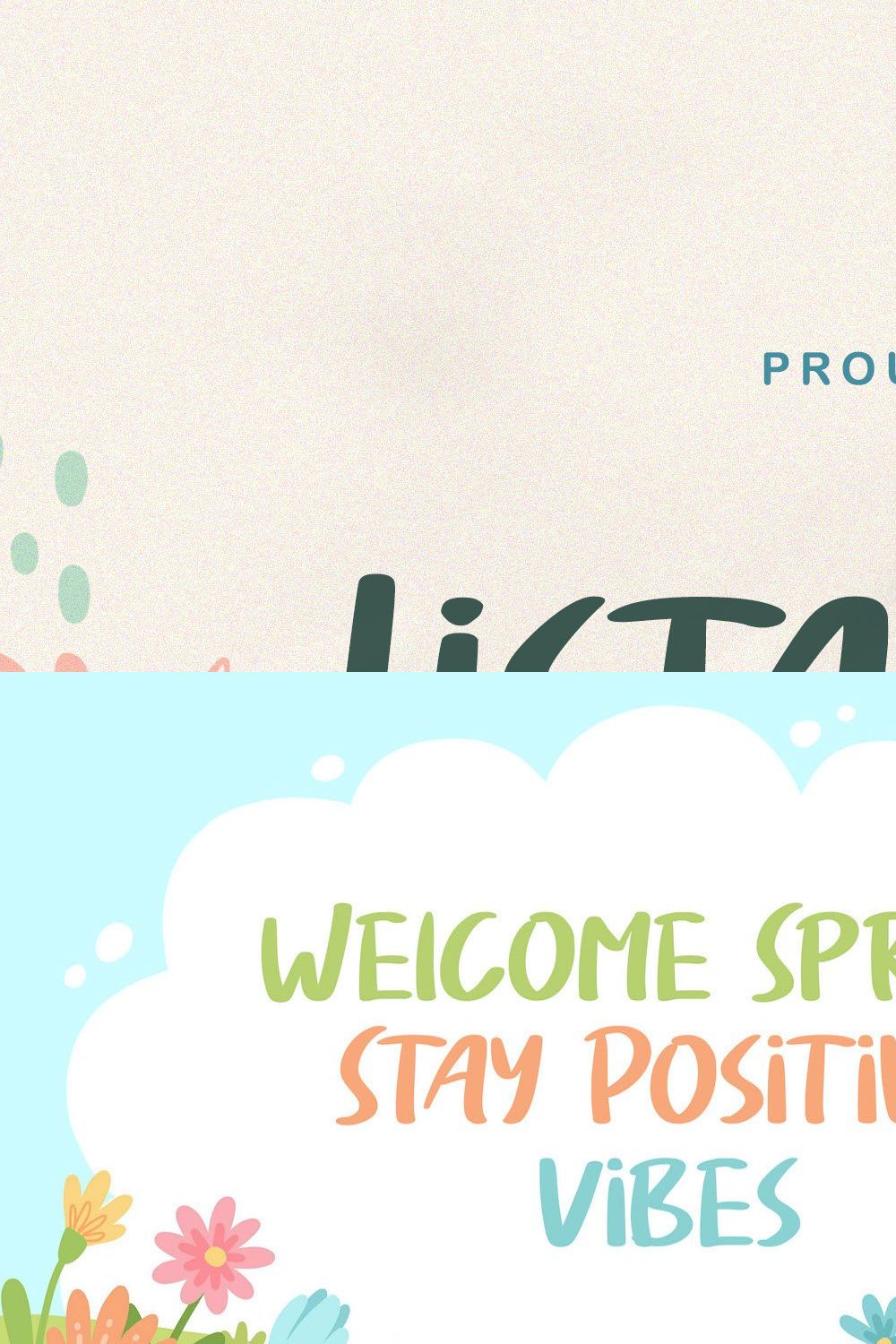
Introducing Listan Type – Playful Display Font
Listan Type is a fun display font. Playful and fresh, this font will be a hit for each of your children or school projects!
Ligatures
Alternates
Uppercase and Lowercase letters
Numbering and Punctuations
Multilingual Support